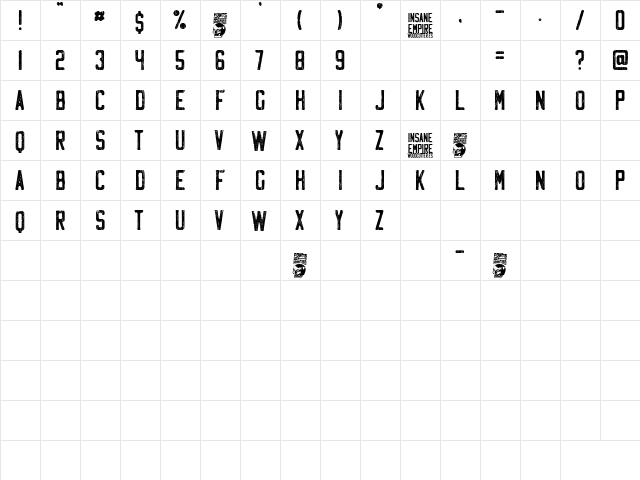
Insane Empire Regular
Design Context for Insane Empire Typeface
Insane Empire is a composed and adaptable typeface that performs quietly and consistently across a wide range of design contexts.